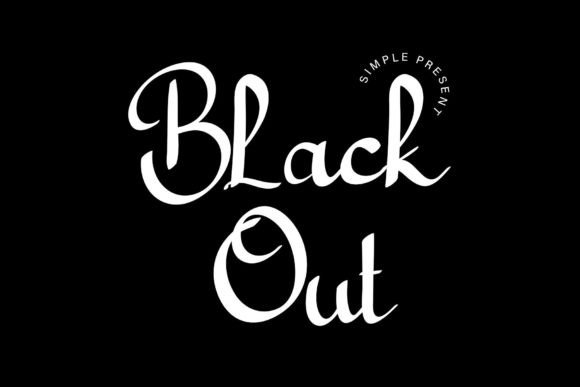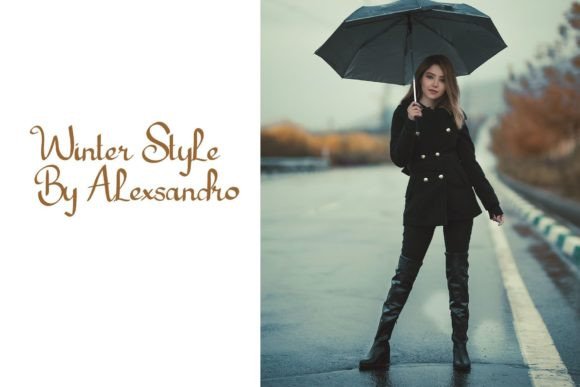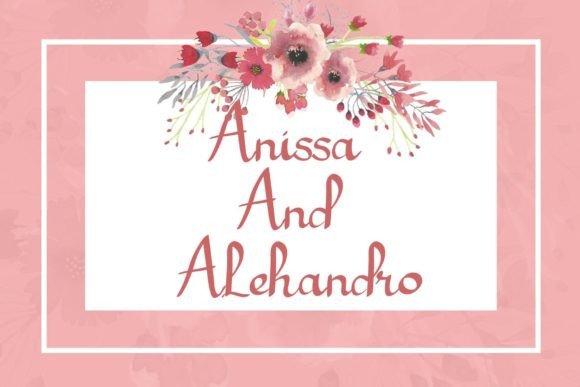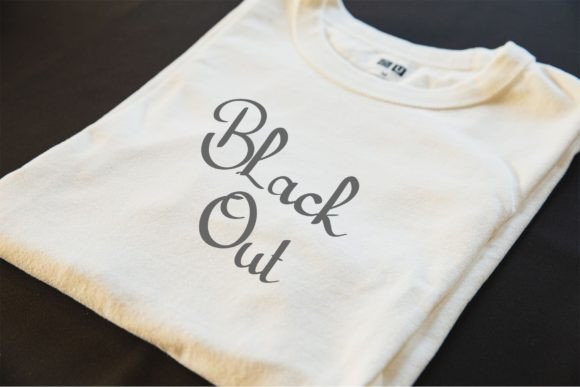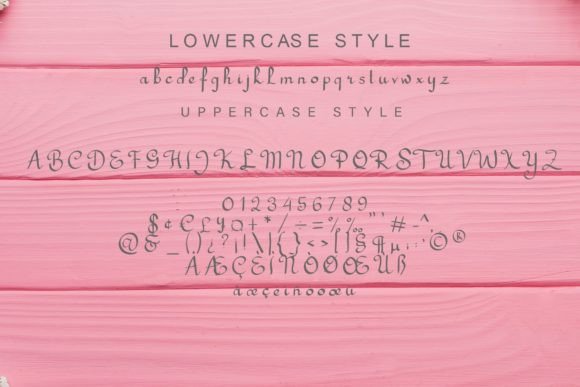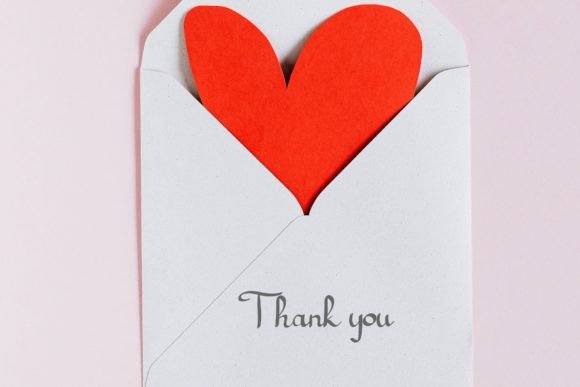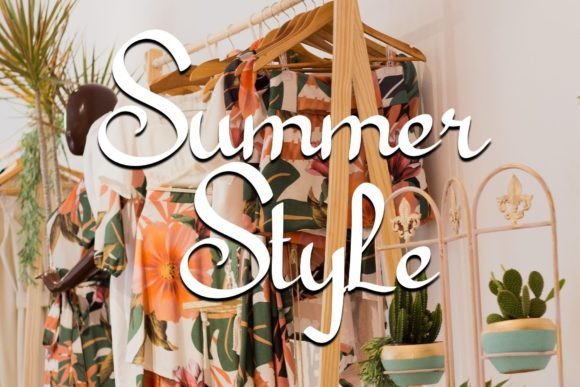
Black out Font
About Black out Font
“Black Out” is a sweet, whimsical, and cursive handwritten font that adds a touch of charm and elegance to your design projects. With characters that gracefully dance along the baseline, this font brings a luxurious spark to any creative endeavor you wish to undertake.
The whimsical and cursive nature of “Black Out” is evident in its carefully crafted characters. Each letter exudes a sense of playfulness and sophistication, making it a delightful choice for a variety of design applications. Whether you’re working on invitations, branding materials, or any other project, this font enhances the overall aesthetic with its unique and dynamic style.
The characters dancing along the baseline contribute to the font’s lively and engaging appearance. This feature adds a dynamic touch, making “Black Out” well-suited for designs that seek to stand out with a blend of luxury and whimsy. It becomes a key element that infuses energy and creativity into your projects.
Imagine the impact of “Black Out” on your design projects—it becomes more than just a font; it becomes a delightful companion that elevates your creations. Whether you’re aiming for a playful theme or creating visually appealing social media content, this font adapts seamlessly to your design vision.
Incorporate “Black Out” into your design toolkit and experience how it transforms your projects. Let its sweet, whimsical, and cursive handwritten style be the spark that adds a luxurious and playful touch to your creative endeavors.